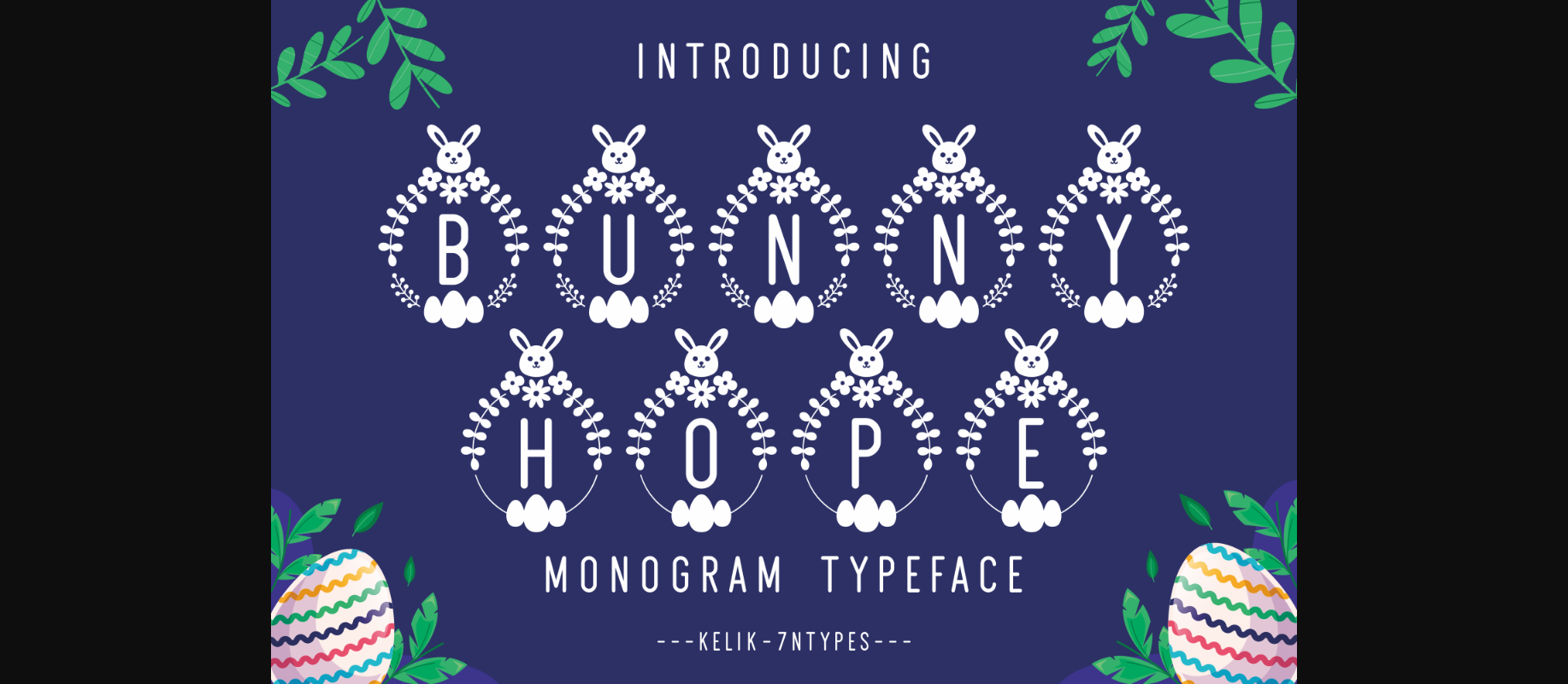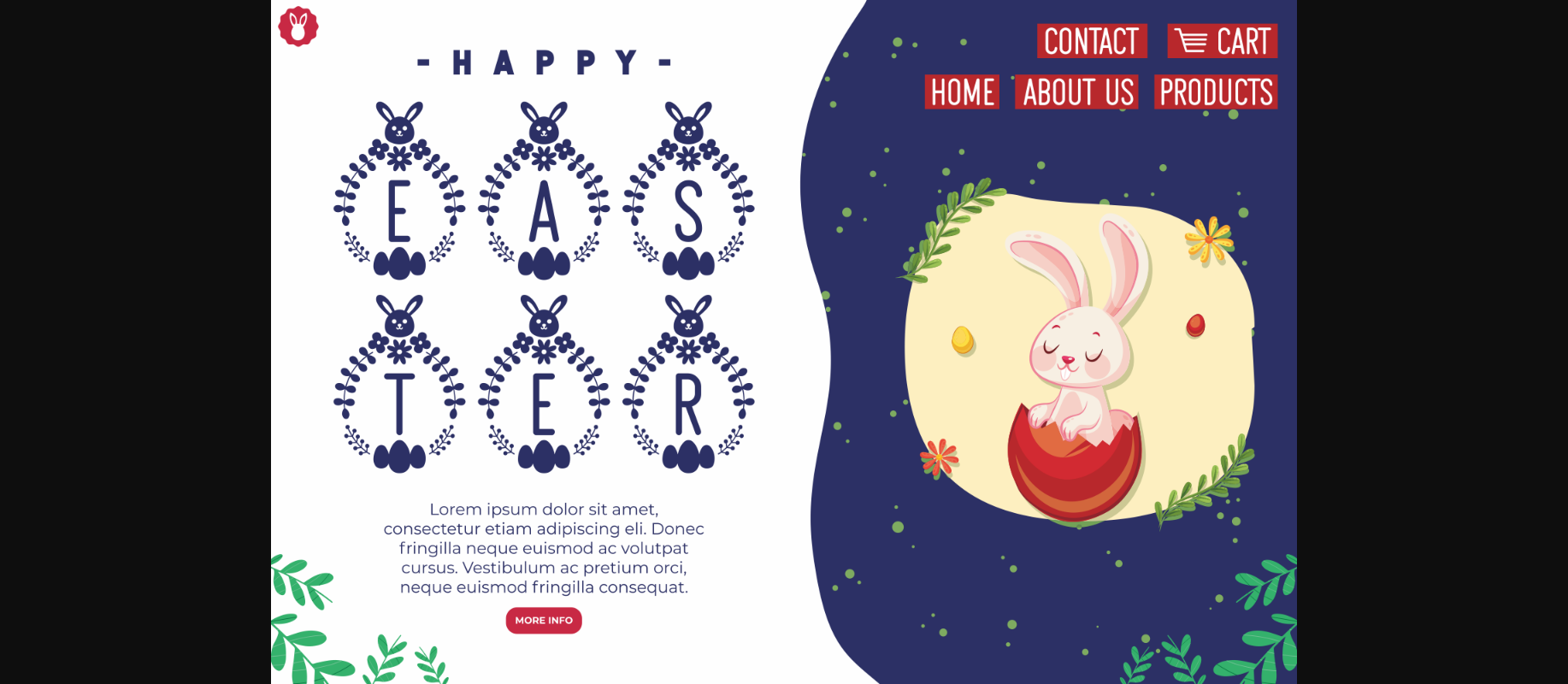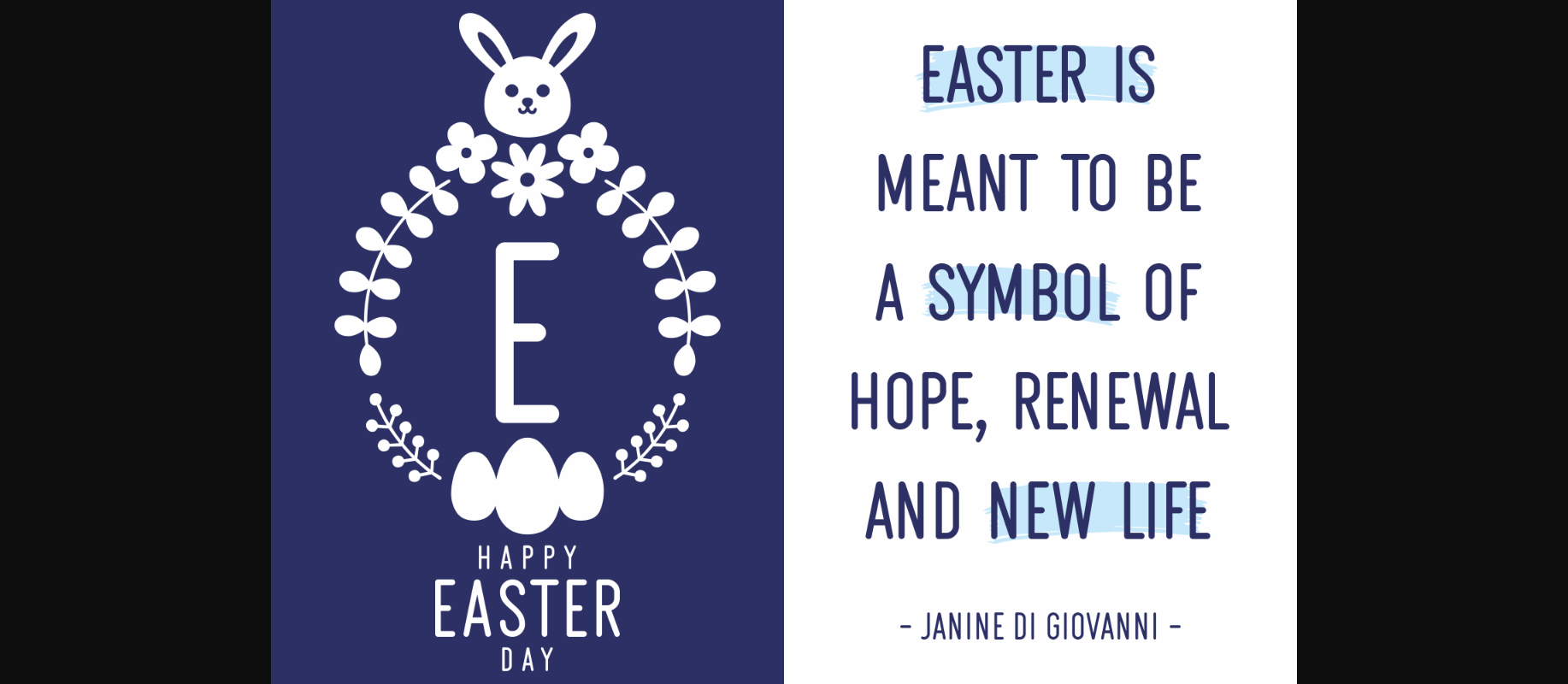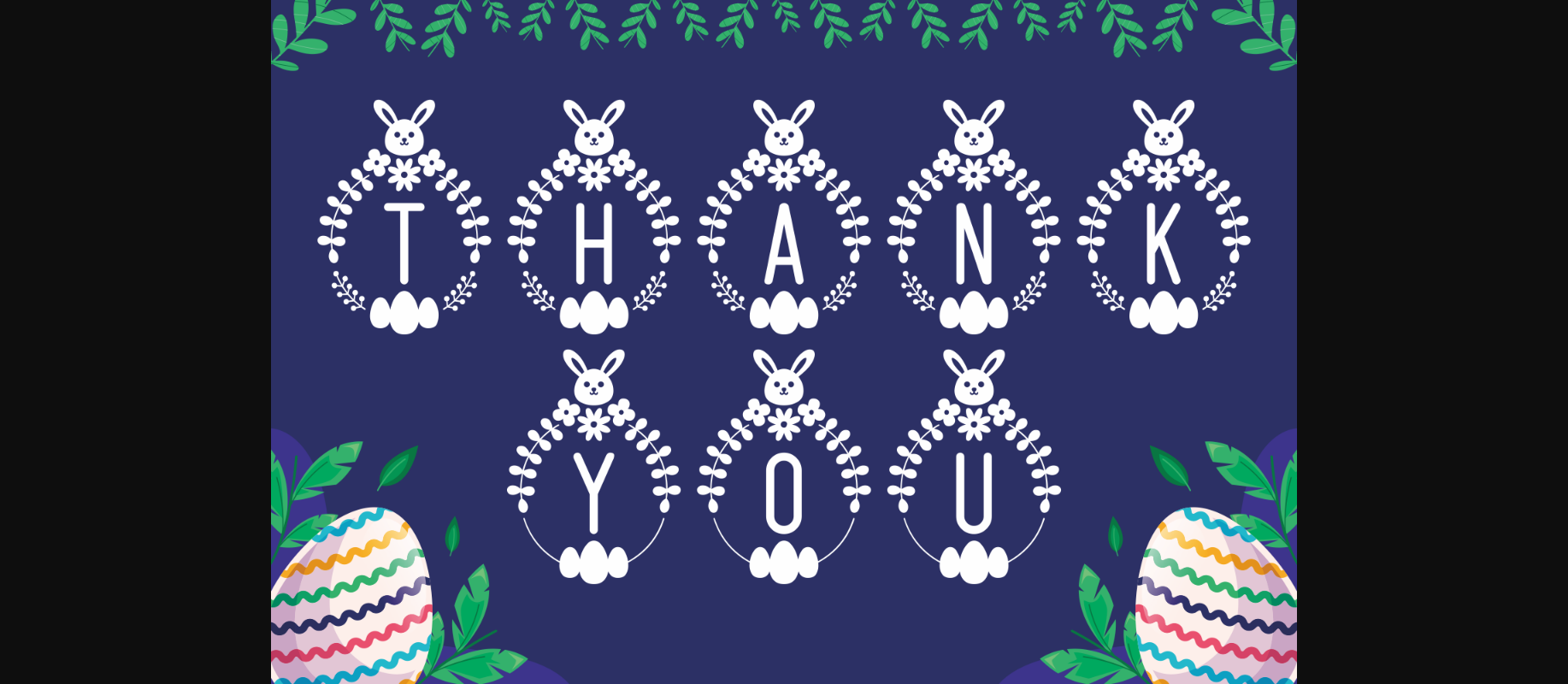
About Bunny Hope Font
Bunny Hope is a cute, whimsical and jolly decorative font. Its sweet and full of life style makes this font a wonderful choice for brightening up your Easter designs.